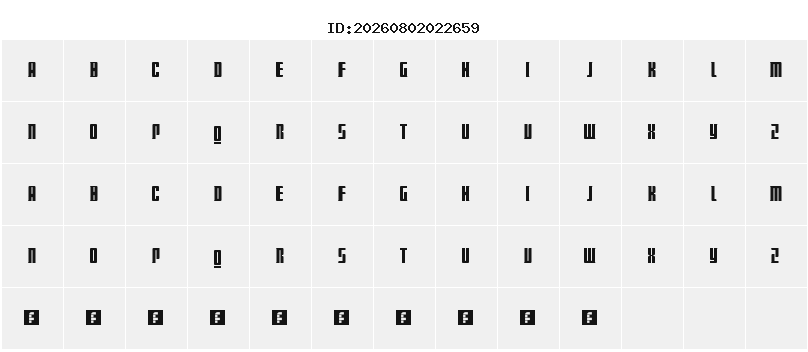
• Font Name: Matt Smith Doctor Who
About Matt Smith Doctor Who.ttf
Matt Smith Doctor Who.ttf is a modern, elegant sans-serif font designed for ultimate readability and visual harmony. Perfect for branding, headlines, web design, and print materials.